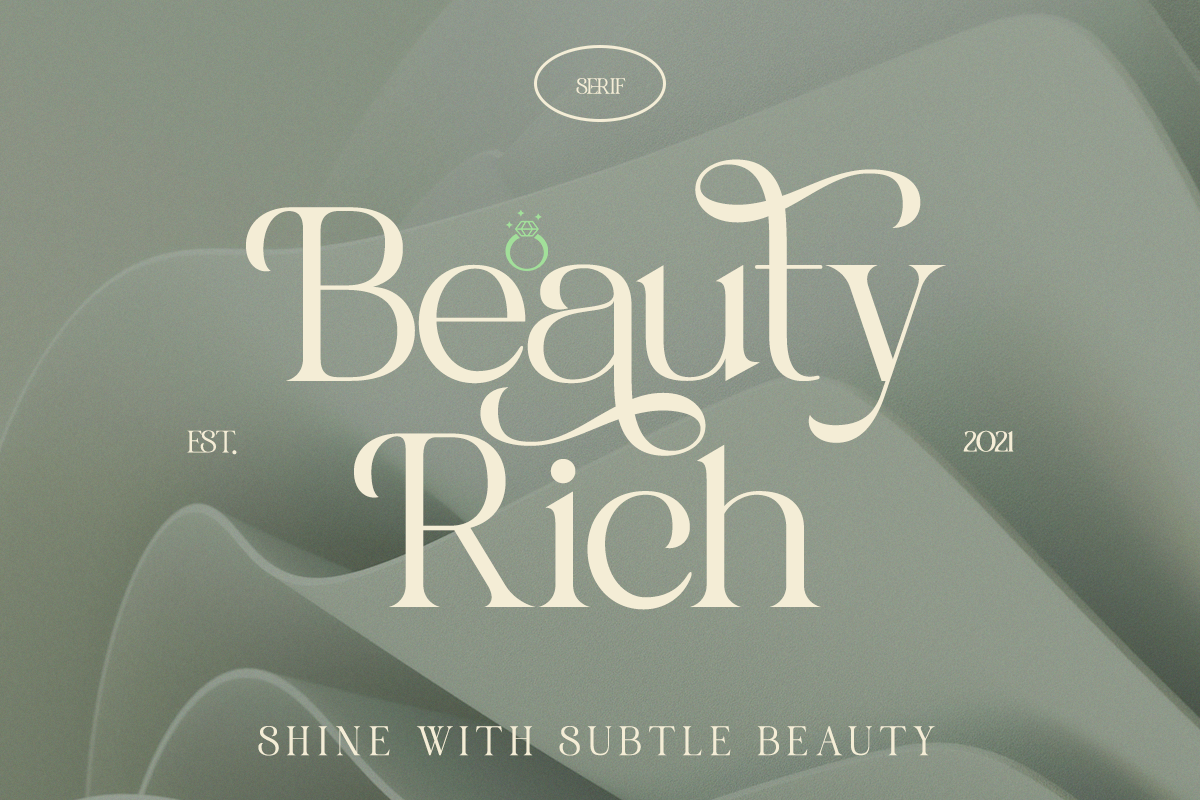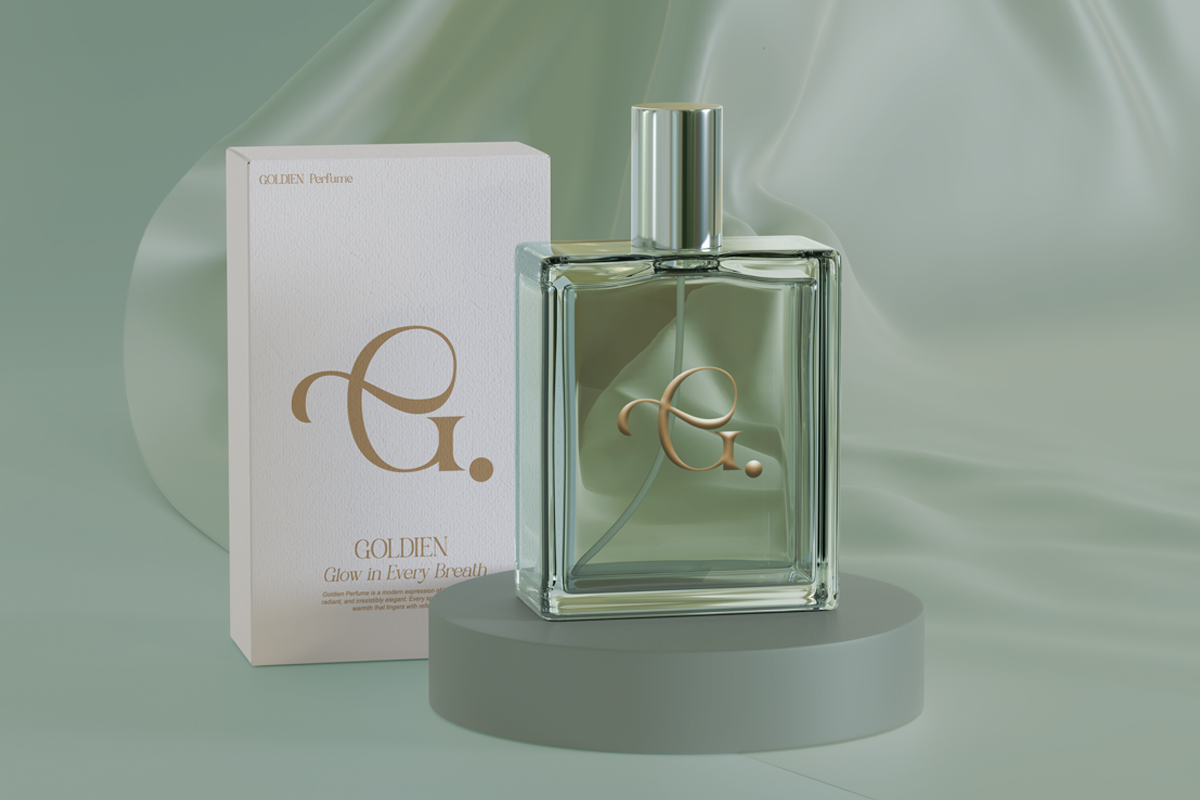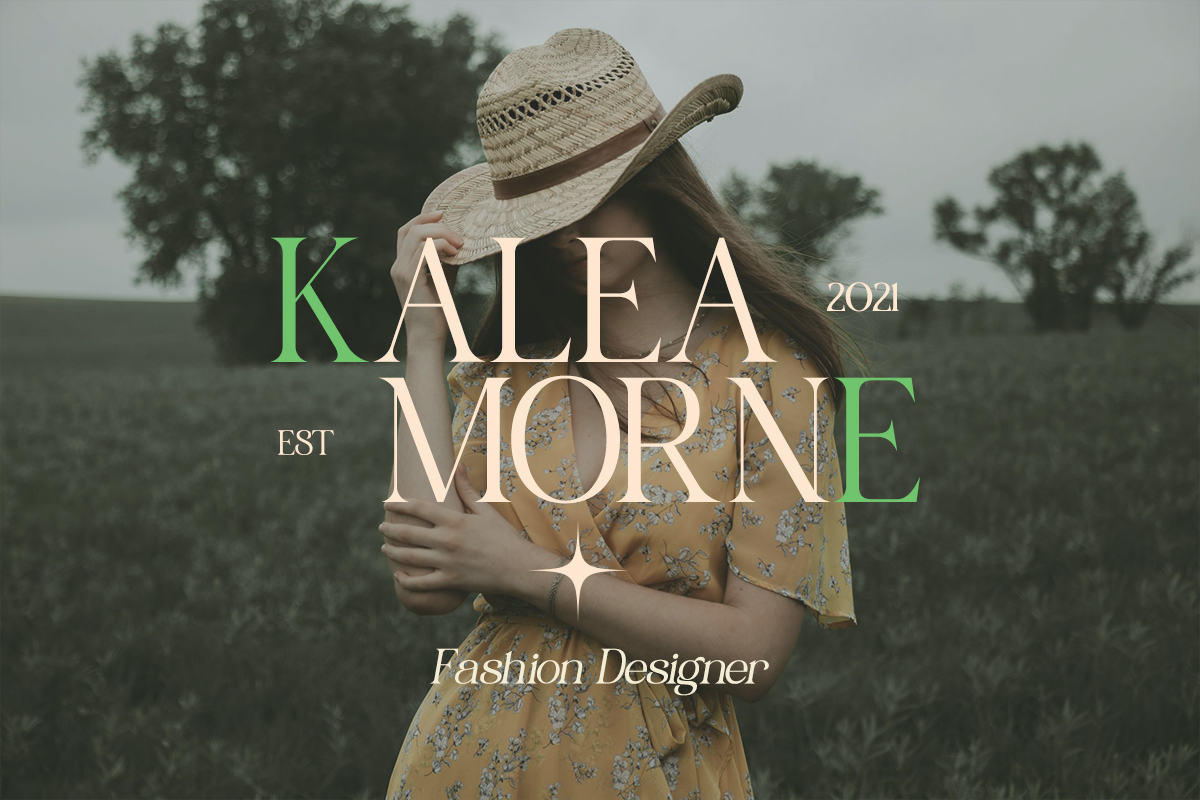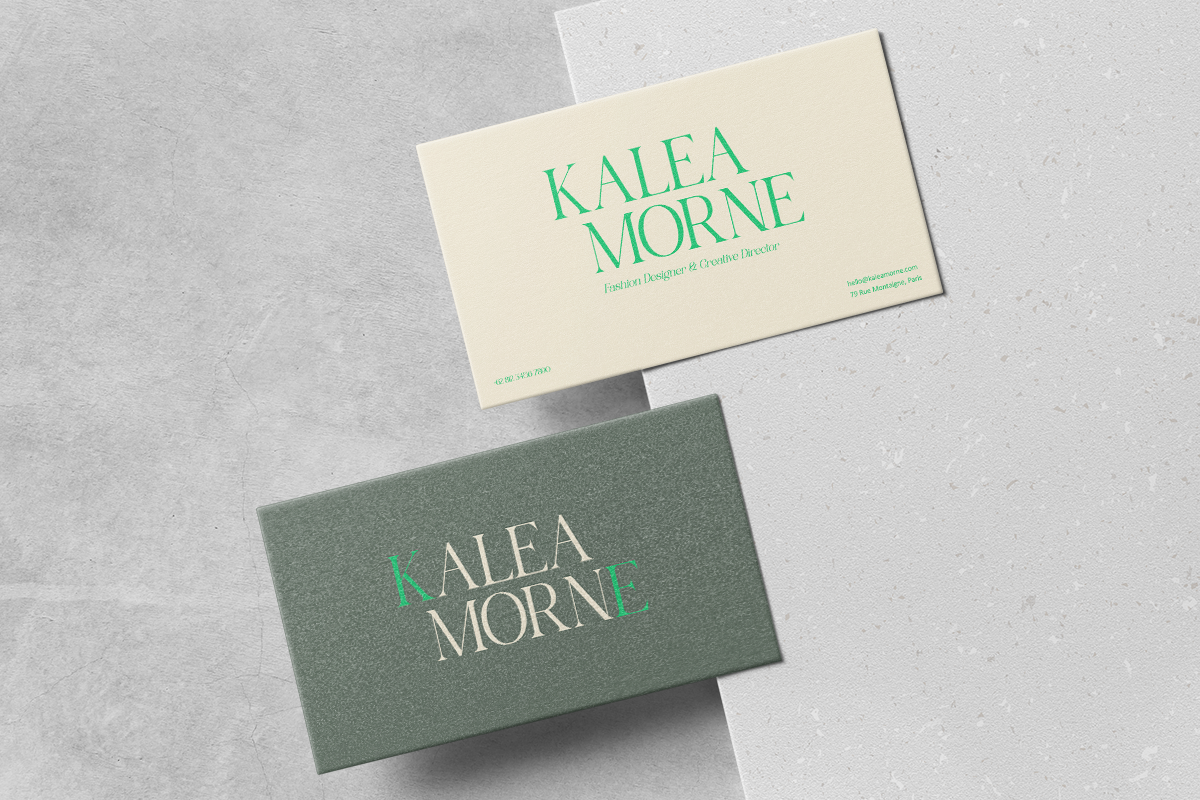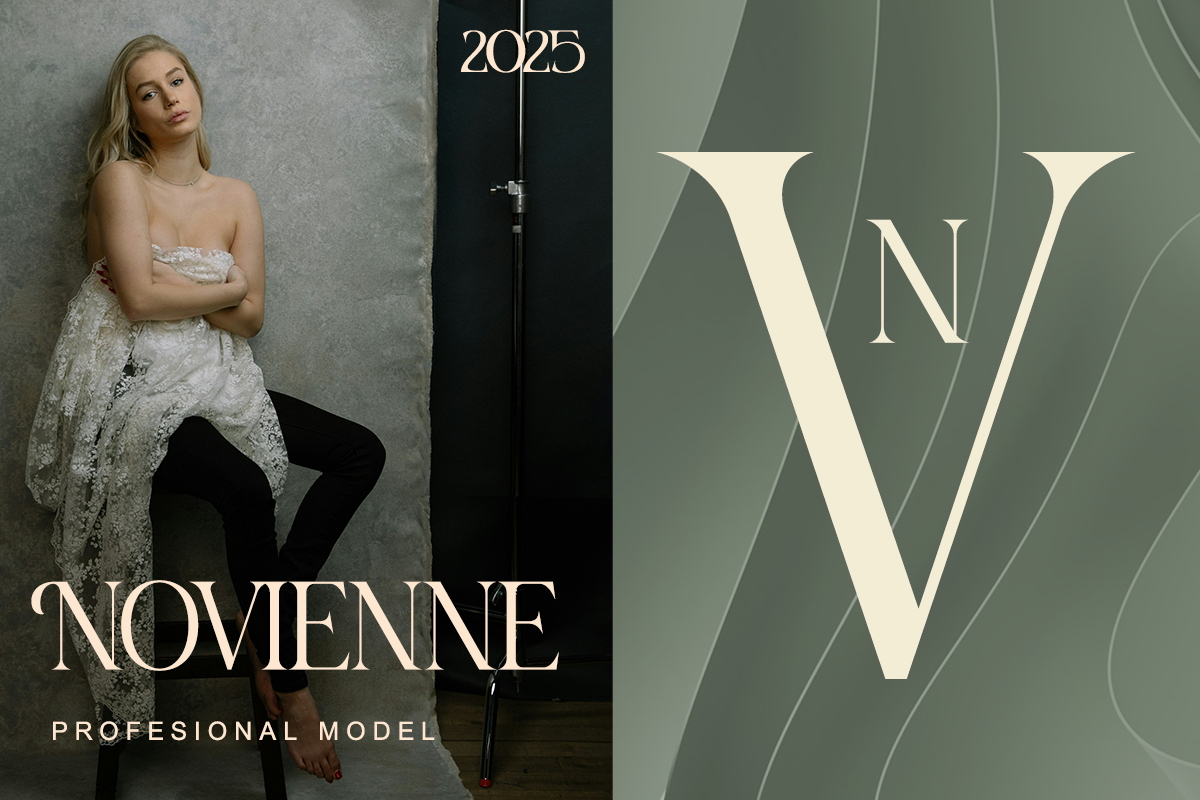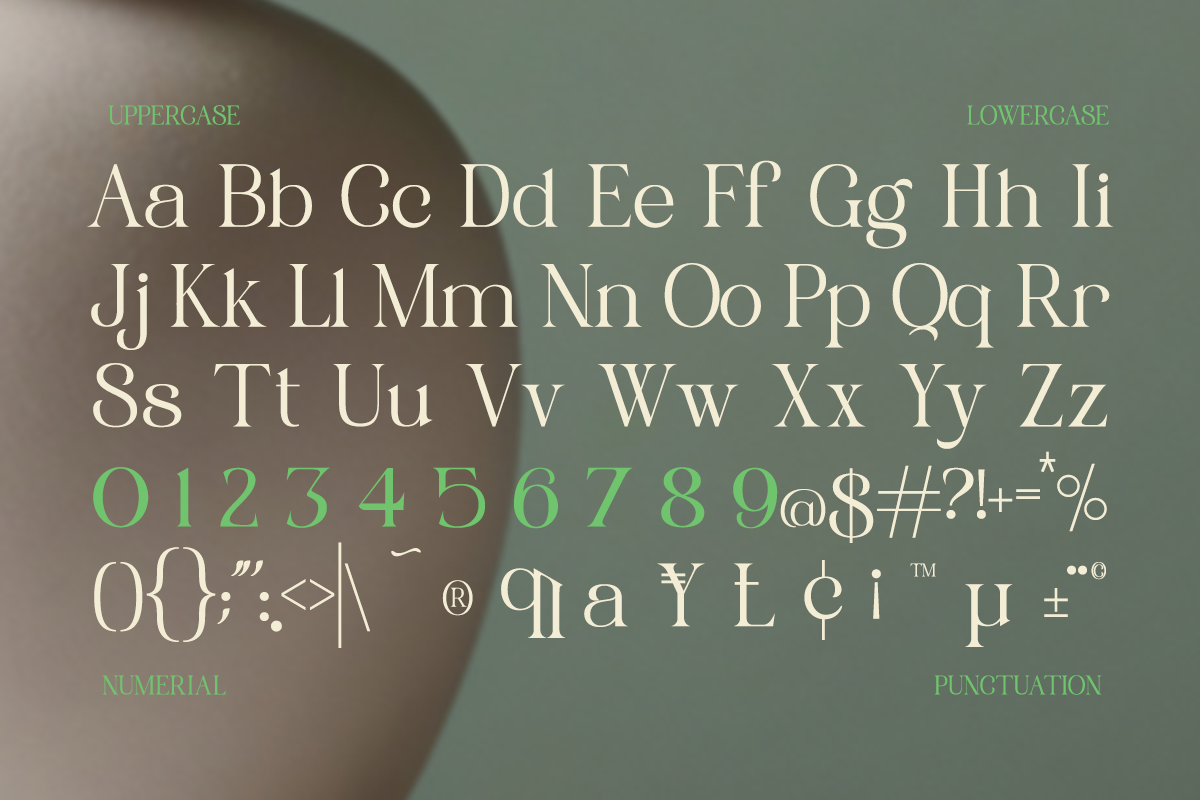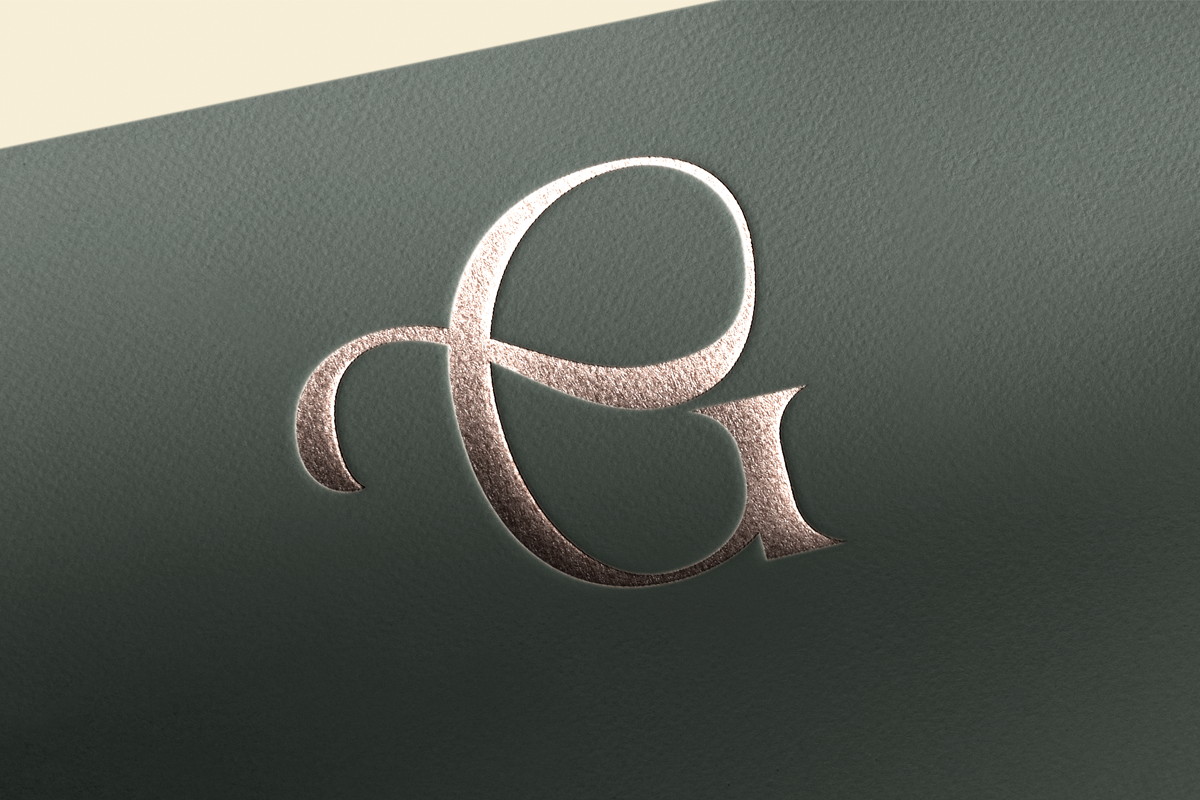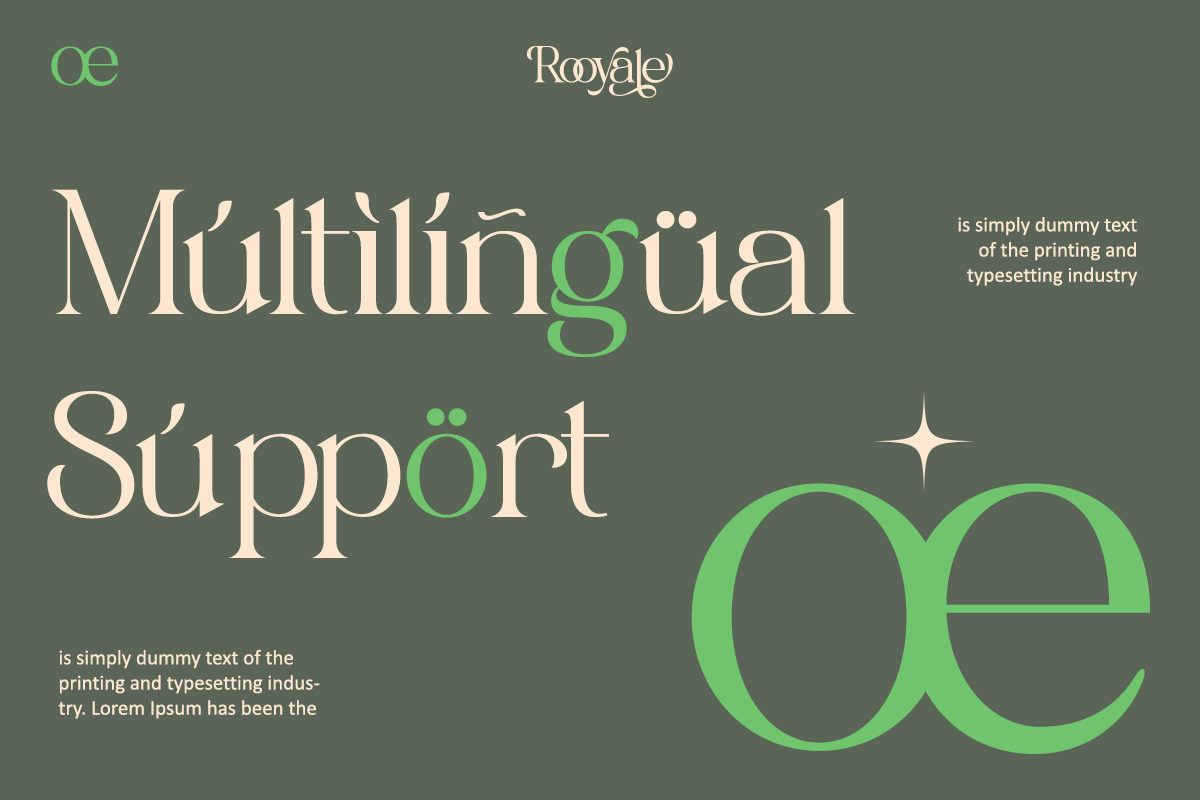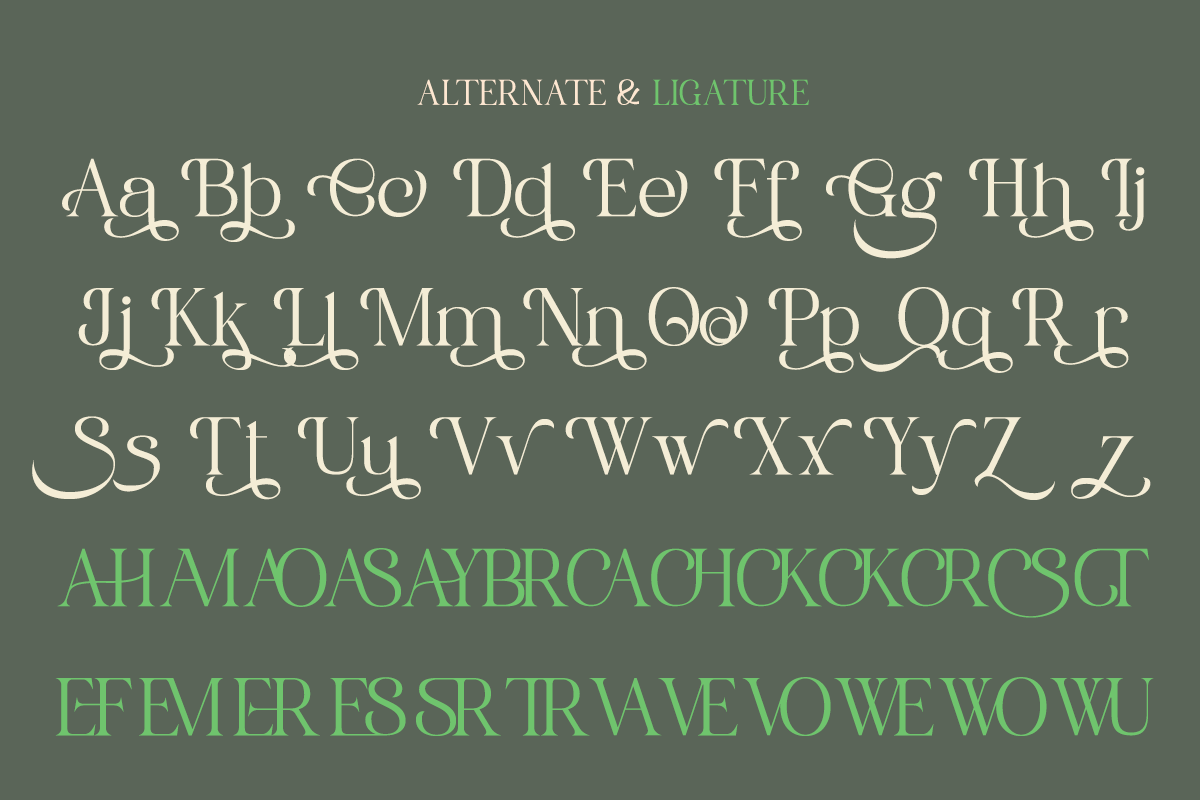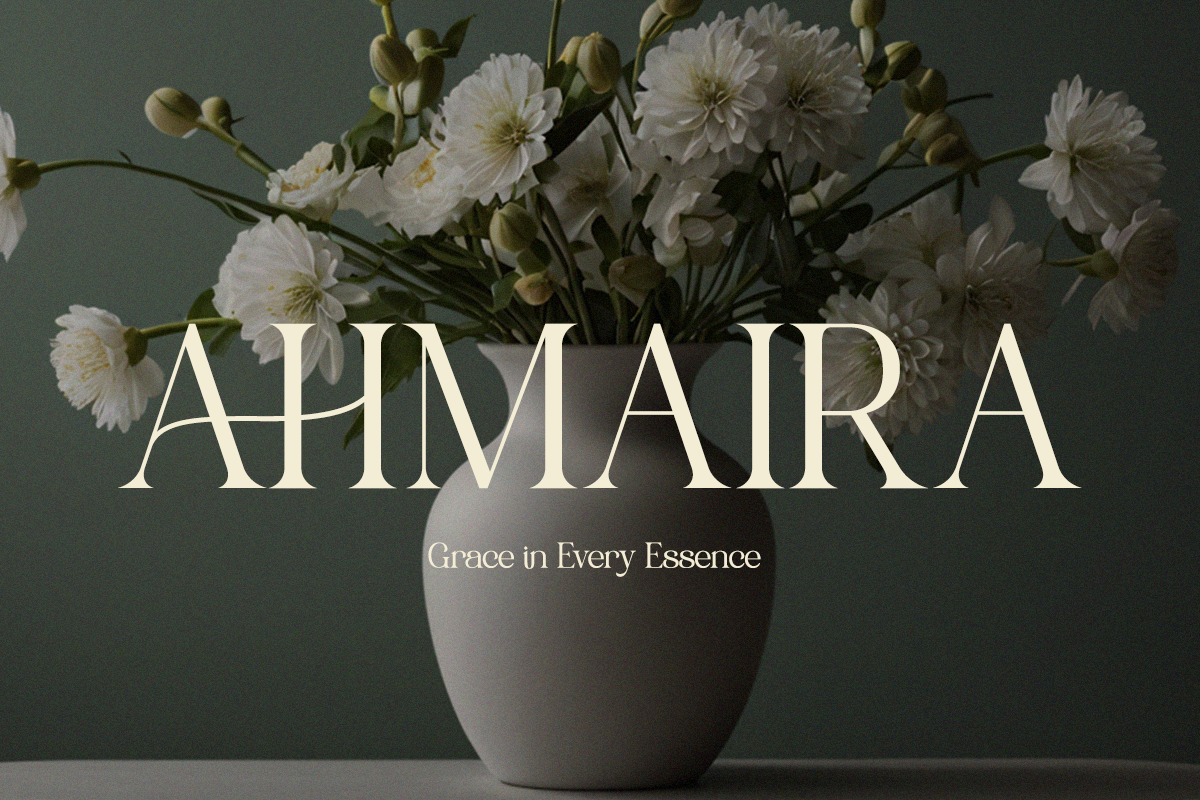
Rooyale - Minimal Modern Stylish
Introducing Rooyale, a minimal and stylish serif with a calm luxury tone. Crafted with soft curves and modern proportions, Rooyale delivers an elevated presence for branding, packaging, and editorial work.
This typeface blends femininity, refinement, and confident simplicity—perfect for beauty brands, boutique logos, and timeless layout styling.
- Regular & Italic
- Beautiful alternates & ligatures
- High-quality strokes & kerning